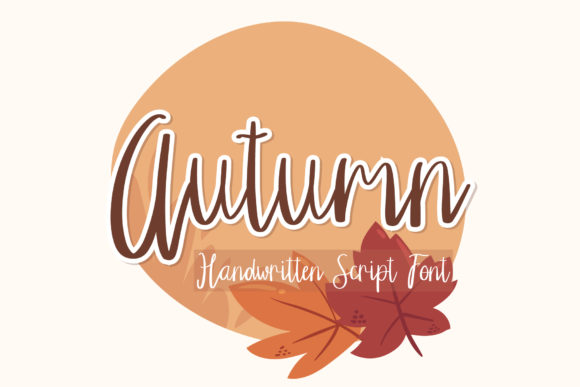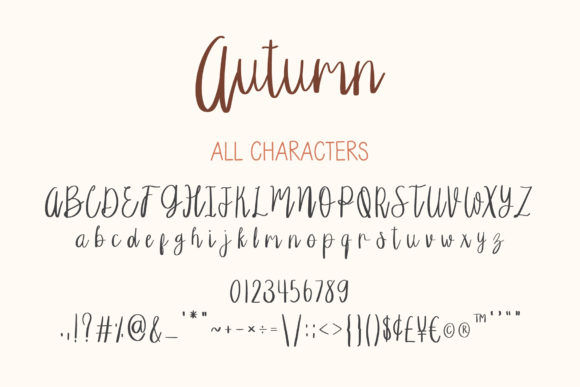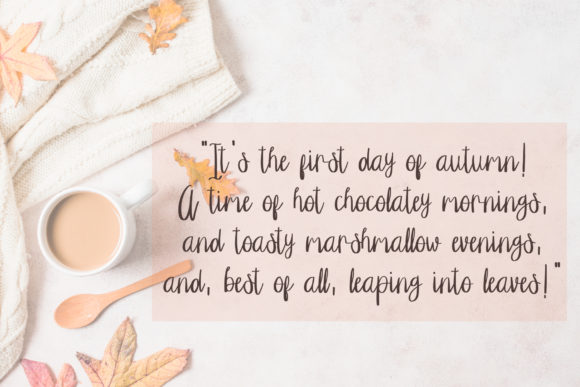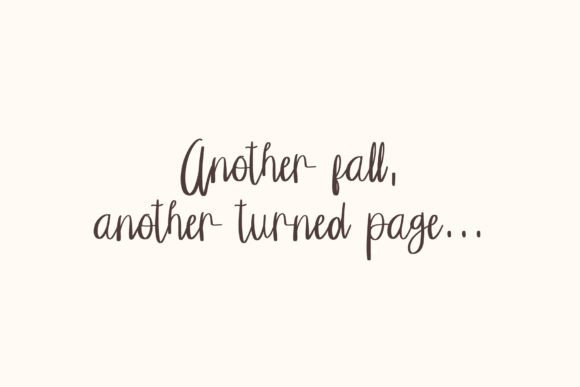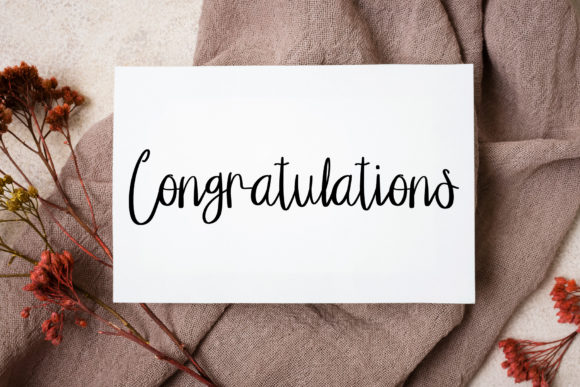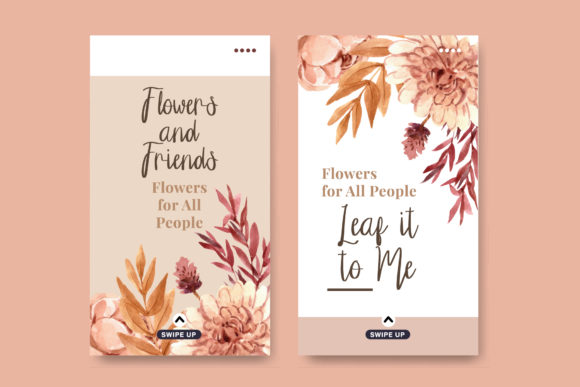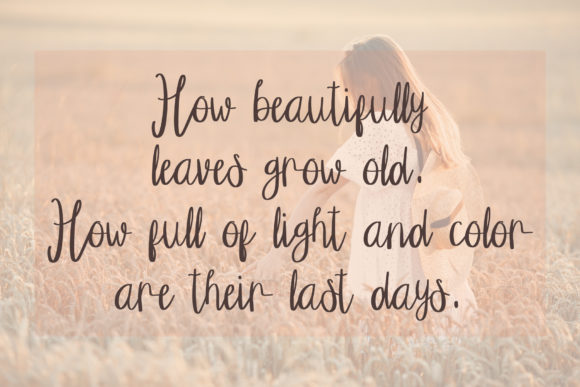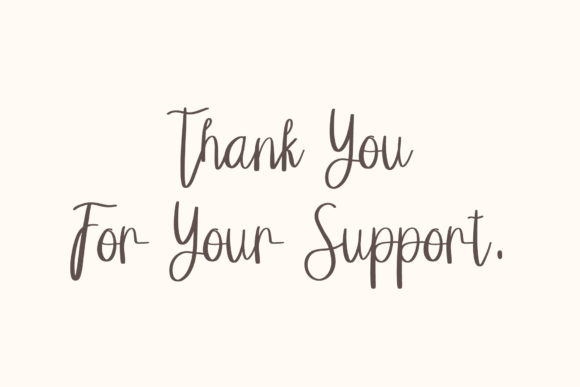
Autumn Font
About Autumn Font
Autumn is a handwritten font with a modern and elegant feel. Autumn is the perfect fit for all of your logos, branding, social media, and crafty DIY projects.